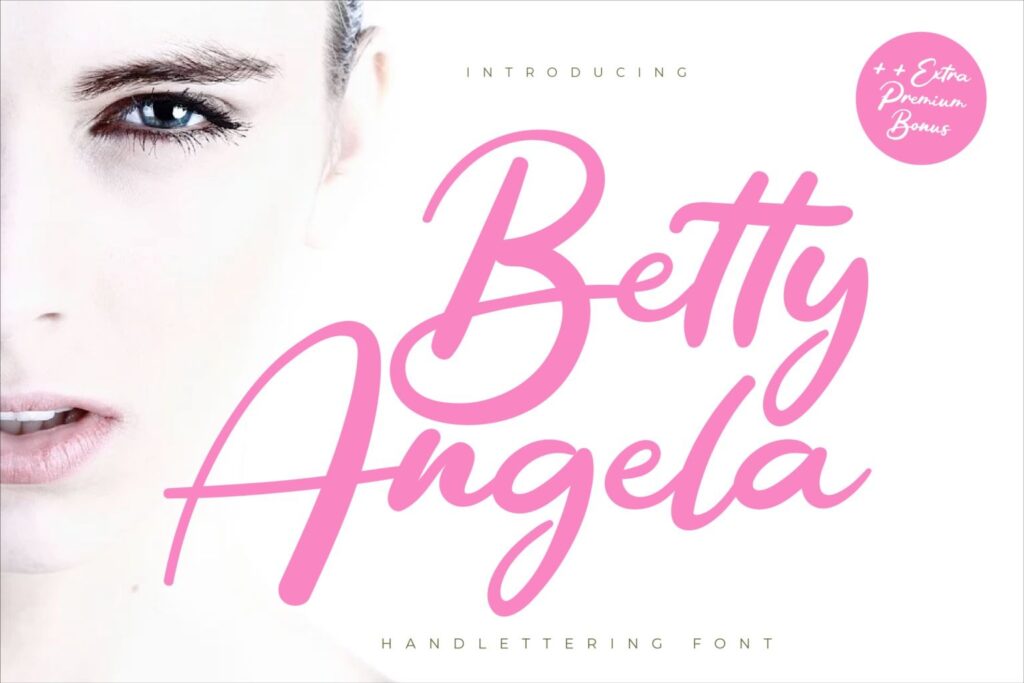
Betty Angel Font
Introducing our newest Signature Font Betty Angel. This font is made with original hand-drawn strokes with a relaxed and elegant feel. This font also offers beautiful abstract typographic harmony for a wide variety of design projects, including natural handwriting in digital form for designs, Quote designs, for social media business designs, advertisements, tradmark brands, promotional banners, lettering, posters, signatures and all designs requiring handwriting or whatever design you want.
Betty Angel Script Font